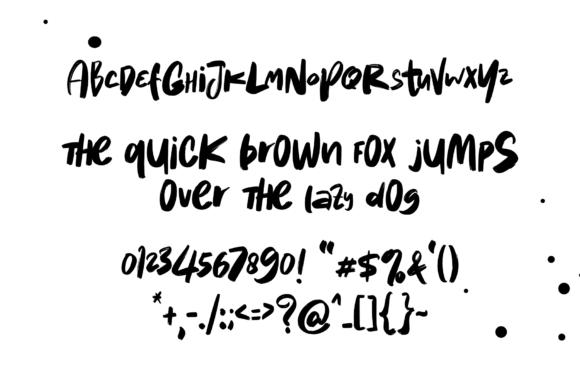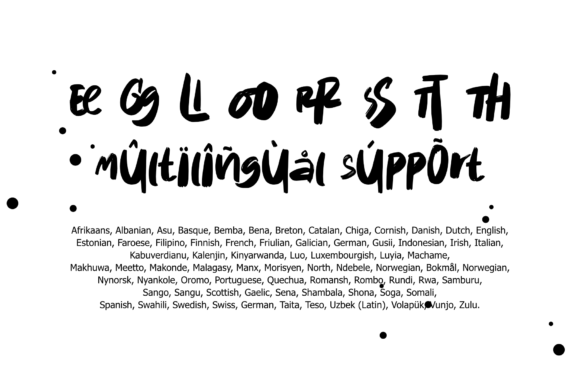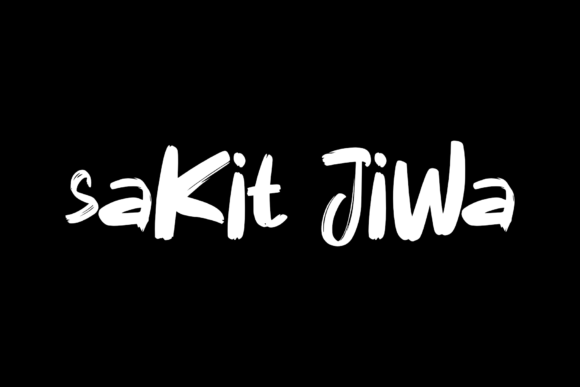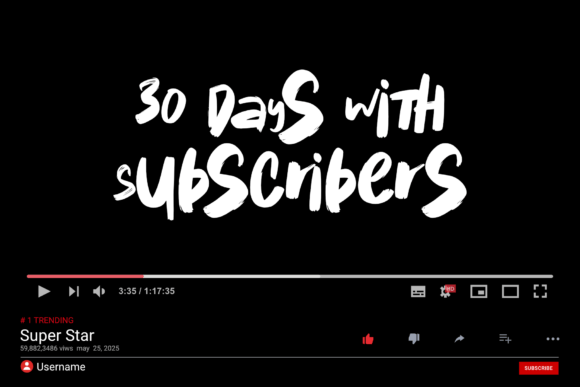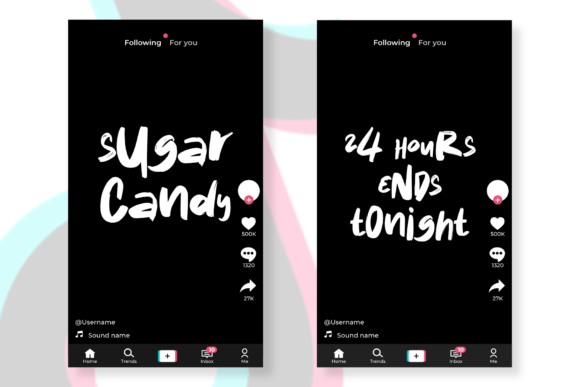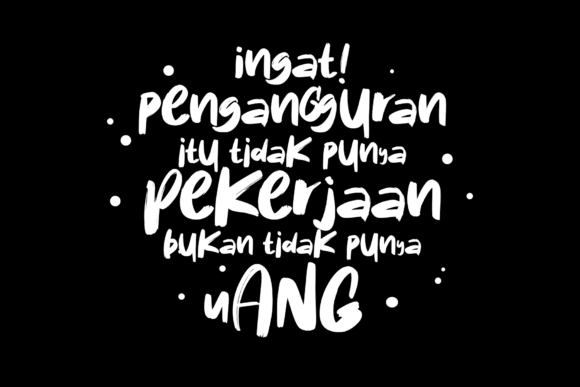
Discover the Unpredictable Beauty of Kebalik Brush Font
As a designer, have you ever experienced that moment of pure creativity when a seemingly random combination of elements comes together to form something truly remarkable? It’s that feeling of stumbling upon a hidden gem, a spark that ignites a new idea and sets your creative project ablaze. For many designers, this moment is elusive, but with the Kebalik Brush Font, it’s possible to recreate that magic with every design.
This innovative brush-type display font is a game-changer for designers who crave unique and high-quality design resources. With a free download option, you can easily incorporate the Kebalik Brush Font into your next project, adding an extra layer of sophistication and creativity to your designs. Whether you’re working on a project with a transparent background or need a font that can stand out from the crowd, the Kebalik Brush Font is an excellent choice.
Key Features of Kebalik Brush Font
- Unique Hand-Drawn Design: Kebalik Brush Font features a distinctive hand-drawn style, perfect for adding a personal touch to creative projects.
- Transparent Background: The font’s transparent background allows for seamless integration with various design elements and backgrounds, giving you more creative control.
Honest Review: Kebalik Brush Font
One of the things that stands out about the Kebalik Brush Font is its high quality. The font is beautifully crafted with a unique, hand-painted feel that’s perfect for creative projects that require a touch of personality.
Here are some of the things that work well about the Kebalik Brush Font:
- ✨ Unique, hand-painted feel that adds a touch of personality to any design
- ✨ High quality font that’s perfect for creative projects
- ⚠️ The font may not be suitable for designs that require a transparent background, as the brush strokes can be quite dense
- ⚠️ The font is only available in a limited range of weights, which may not be suitable for all design projects
Overall, I’m really impressed with the Kebalik Brush Font. It’s a great addition to any designer’s toolkit and I would definitely recommend it for any creative project that requires a unique, high-quality font.
Getting the Most Out of Kebalik Brush Font
To get the most out of the Kebalik Brush Font, experiment with different font sizes, colors, and styles. Use it in combination with other design elements to create a unique and eye-catching design. Don’t be afraid to try new things and push the limits of what’s possible with this versatile font.
The Kebalik Brush Font is ideal for a variety of creative projects, including:
- Blog posts and articles
- Logos and branding
- Business cards and resumes
Alternatives to Kebalik Brush Font